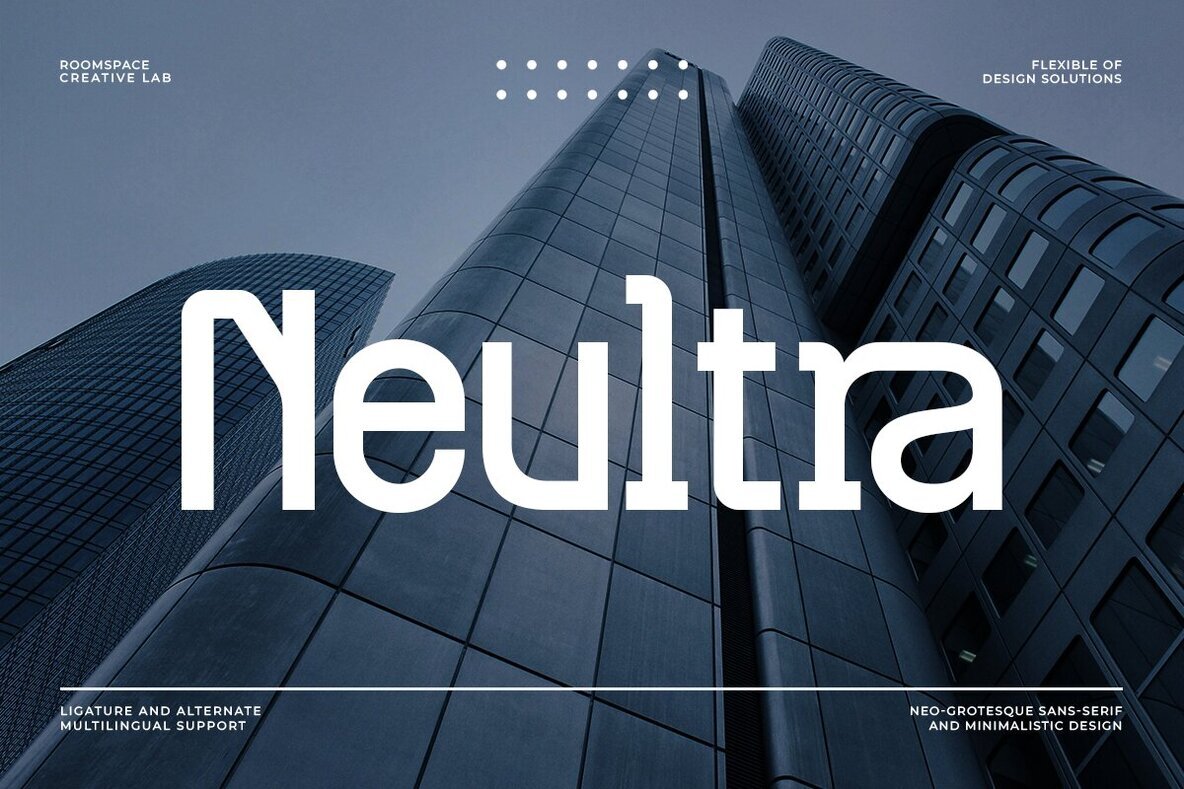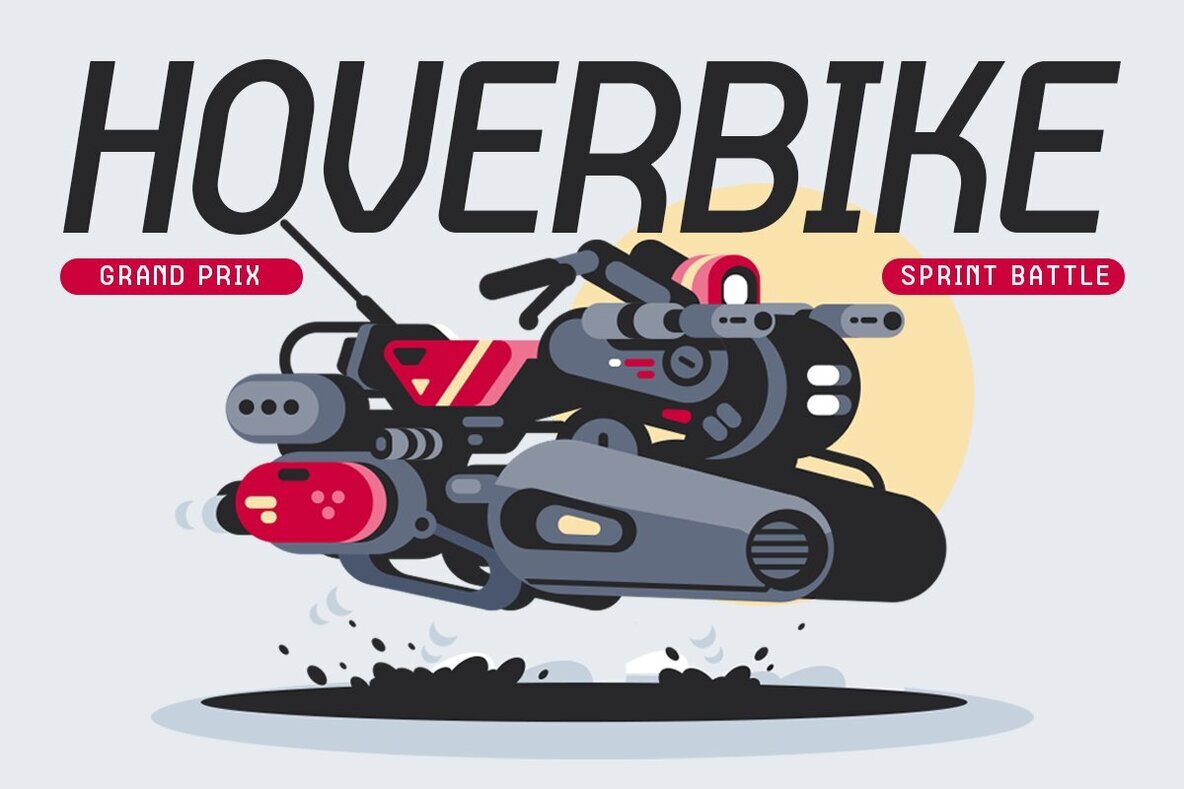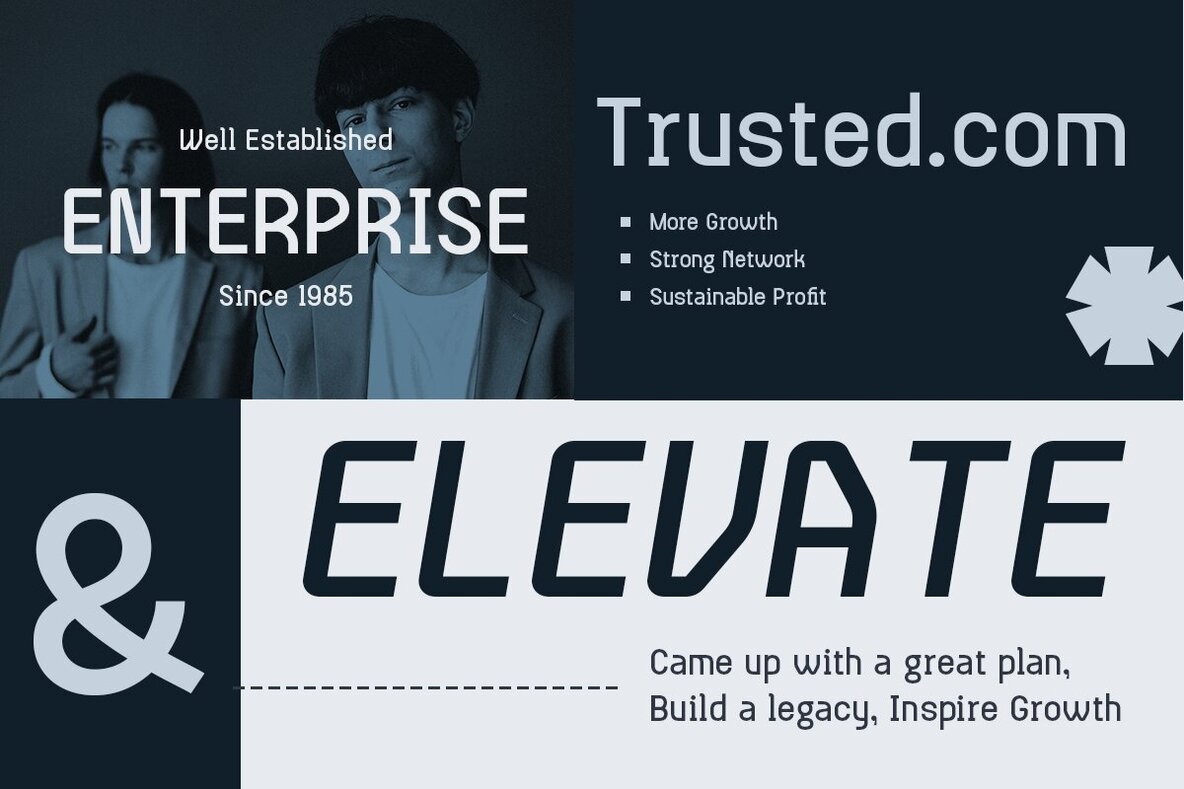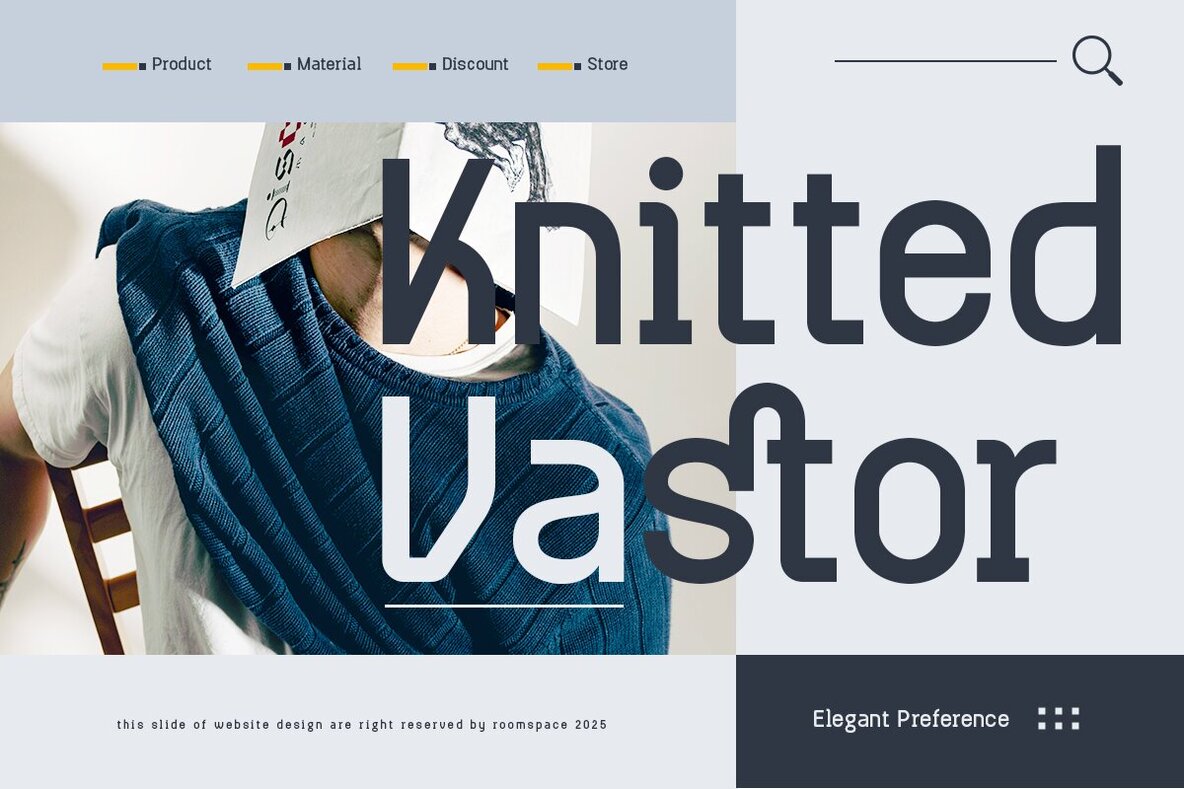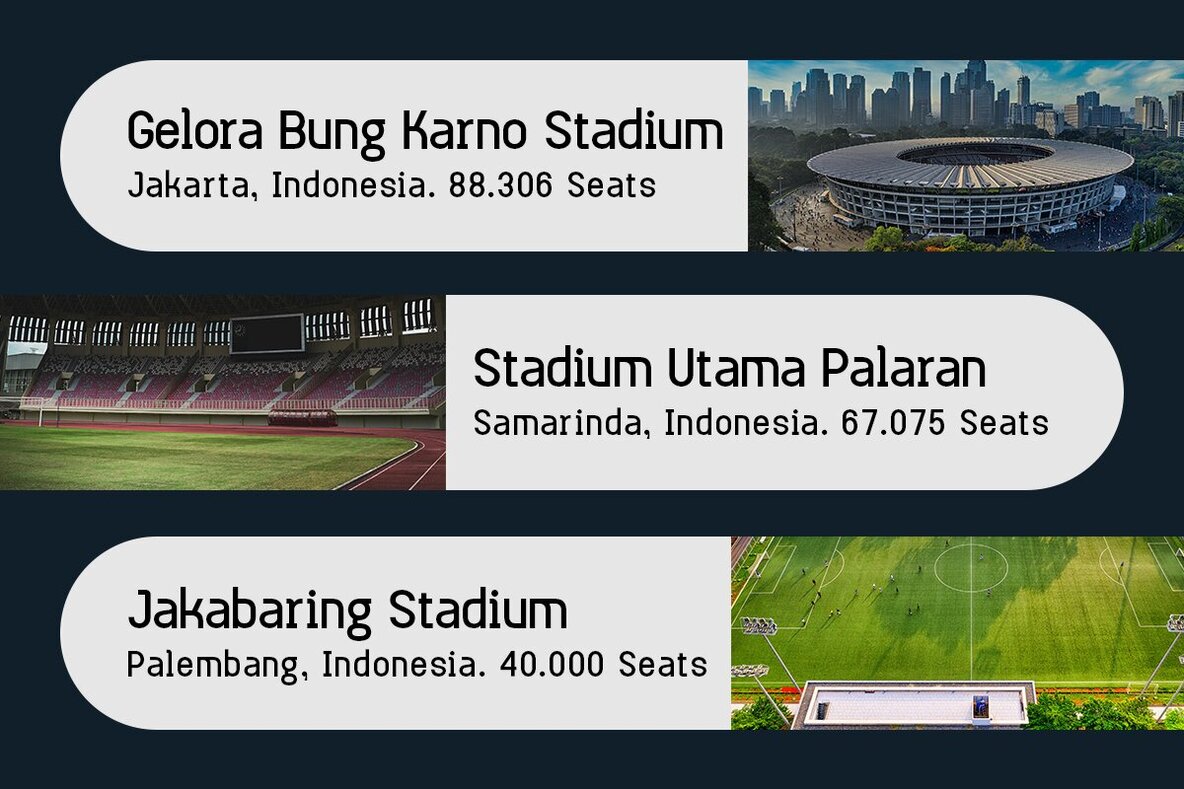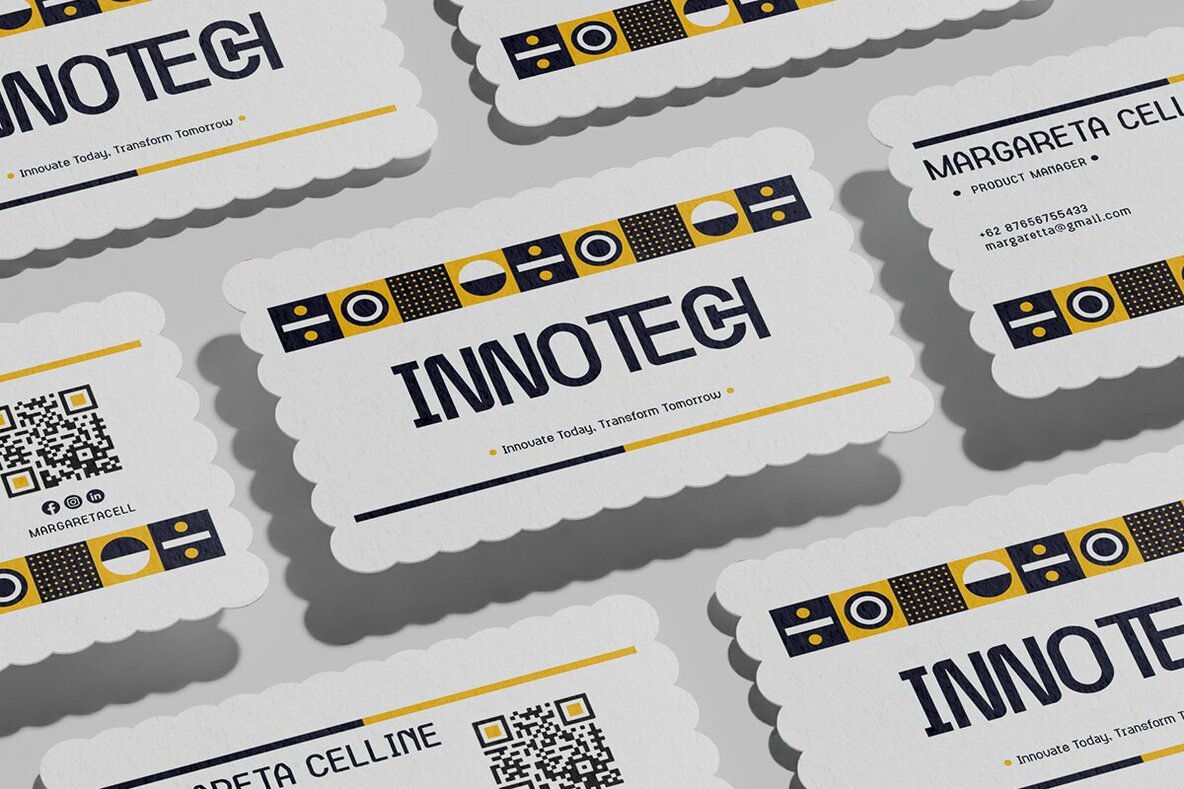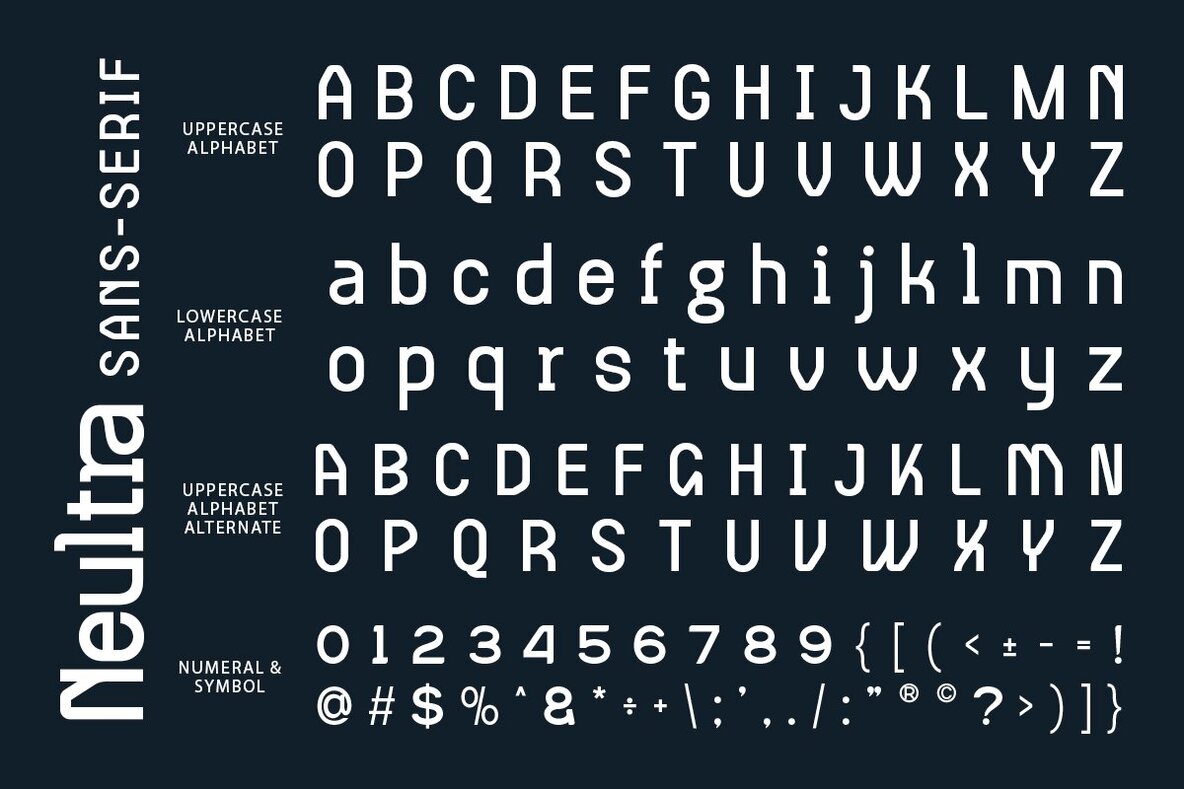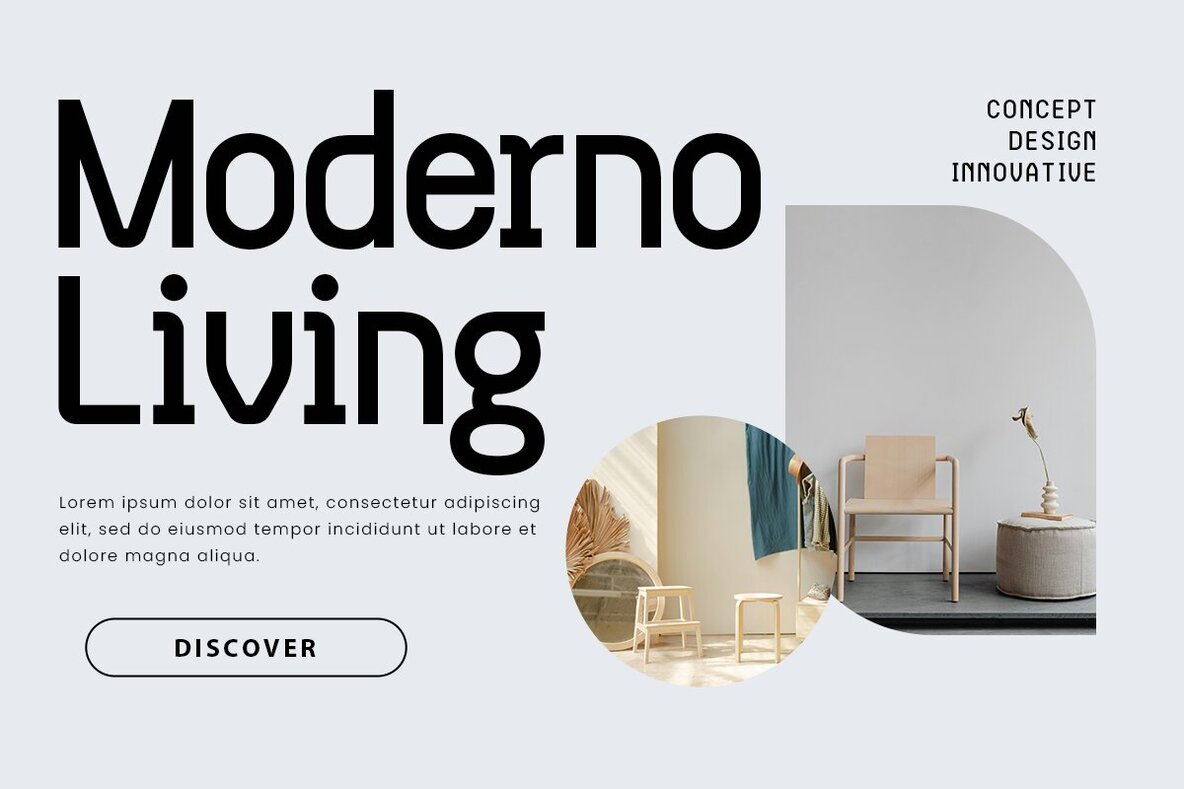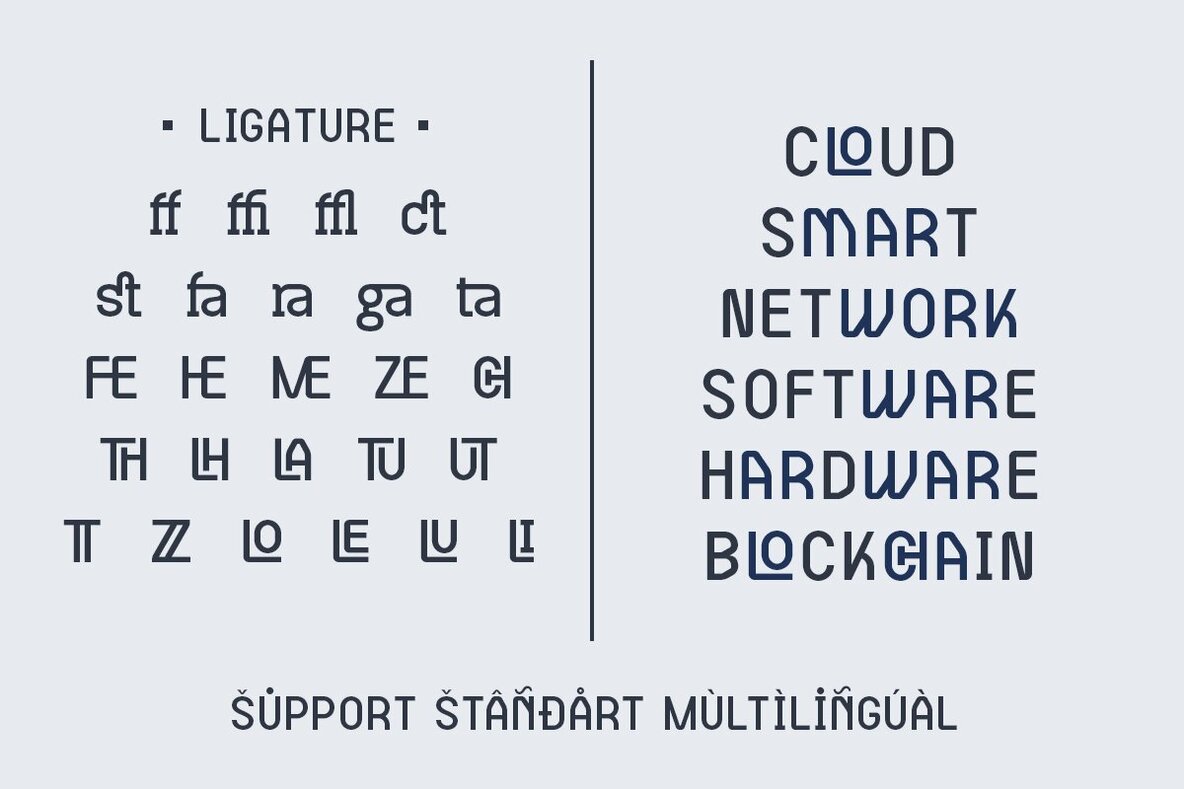
Neultra Font
Neultra is a sleek and modern sans-serif typeface that combines a futuristic aesthetic with flexible design. Its rounded edges soften the rigid structure, striking a perfect balance between precision and approachability. Ideal for designers, businesses, and creatives seeking a clean yet distinctive typographic style, Neultra captures attention with its minimalist and forward-thinking design. Perfect for branding, web interfaces, editorial layouts, and high-tech projects, Neultra seamlessly integrates into various design applications. Let your creativity flow with this adaptable typeface that meets diverse design needs.Neultra: The Modern Typeface for the Futuristic Mindset